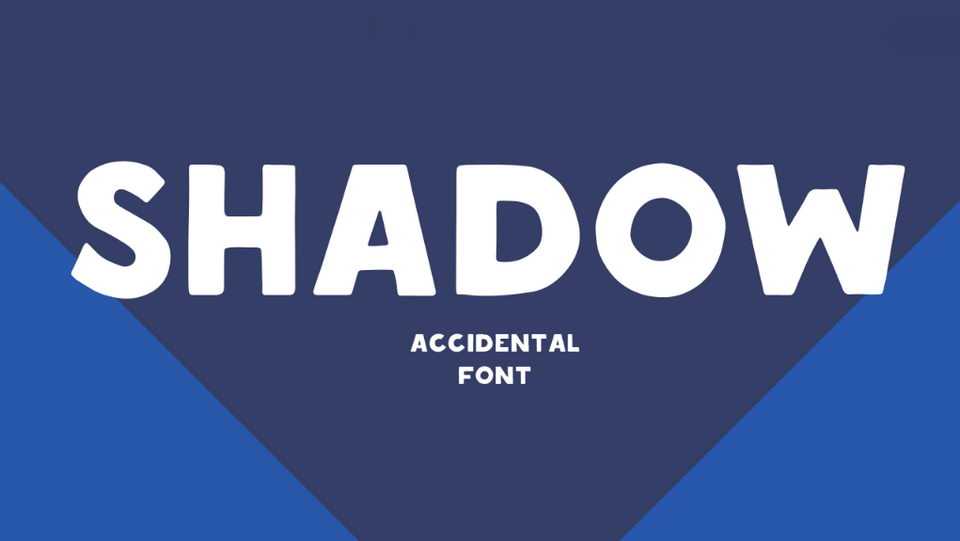
Download Shadow font, an accidental typeface in two styles – Regular and Light (Shadow). The font works best for headlines, posters, short messages and other display use.
Designer: Misha Panfilov